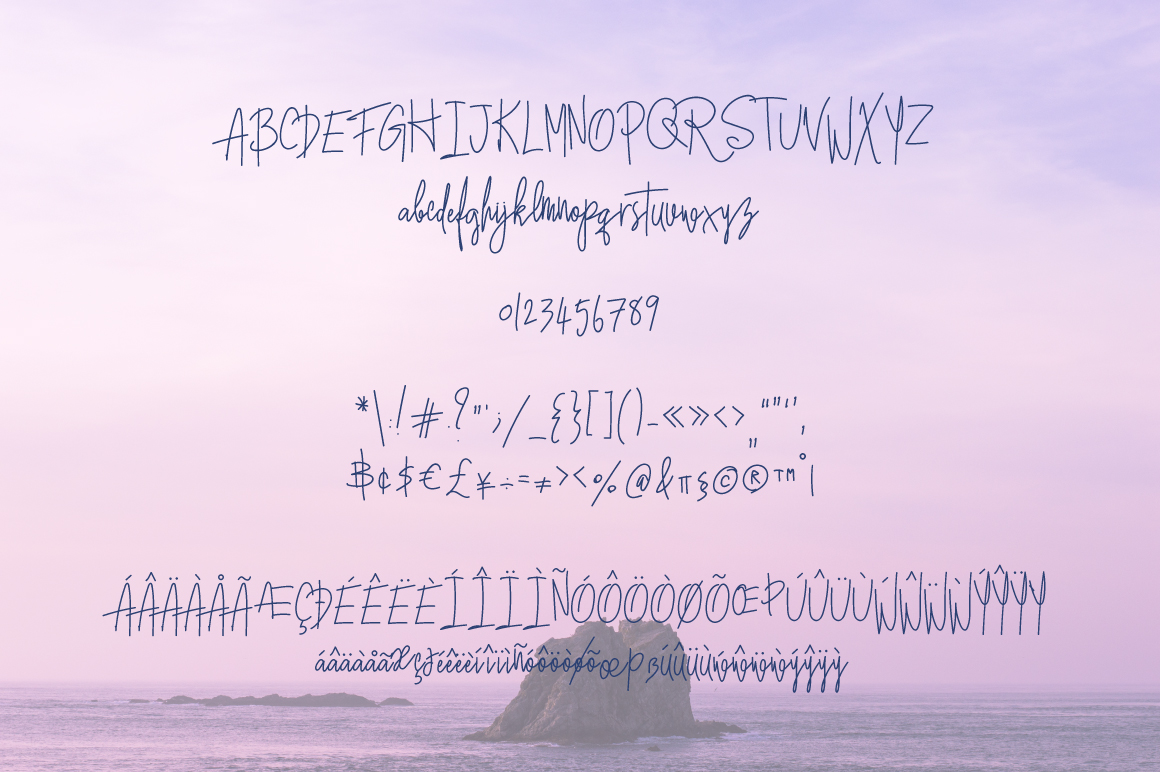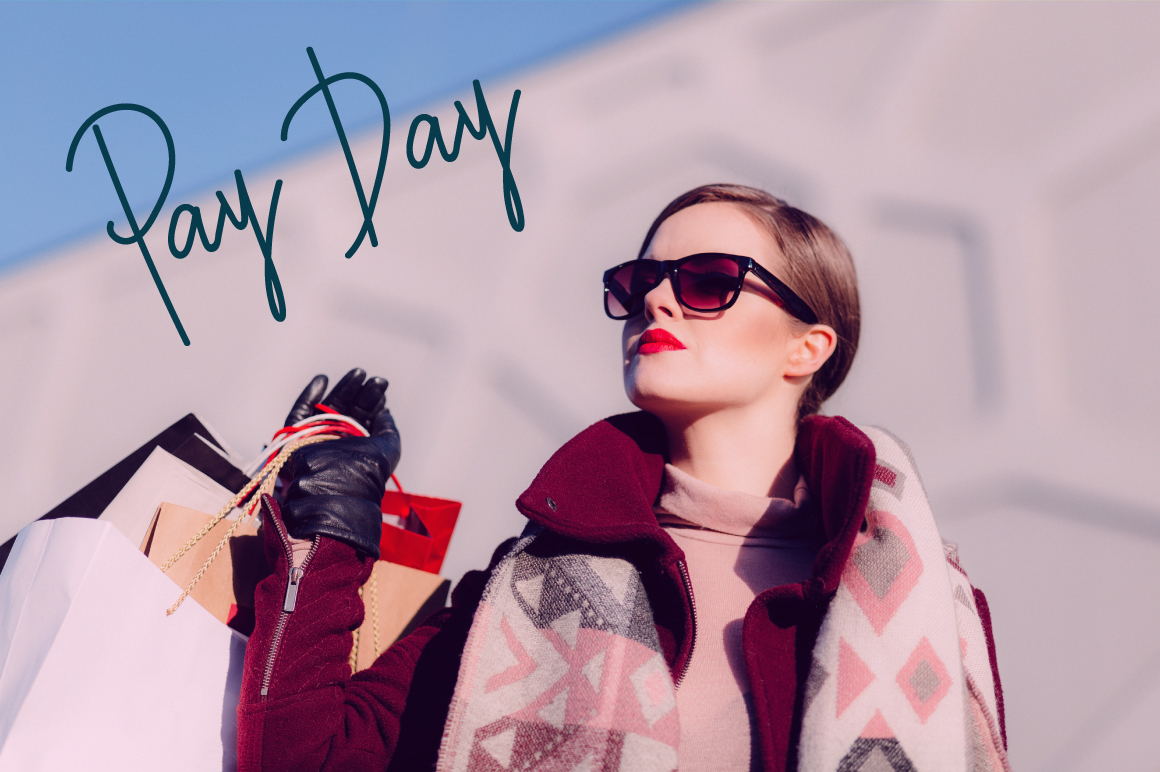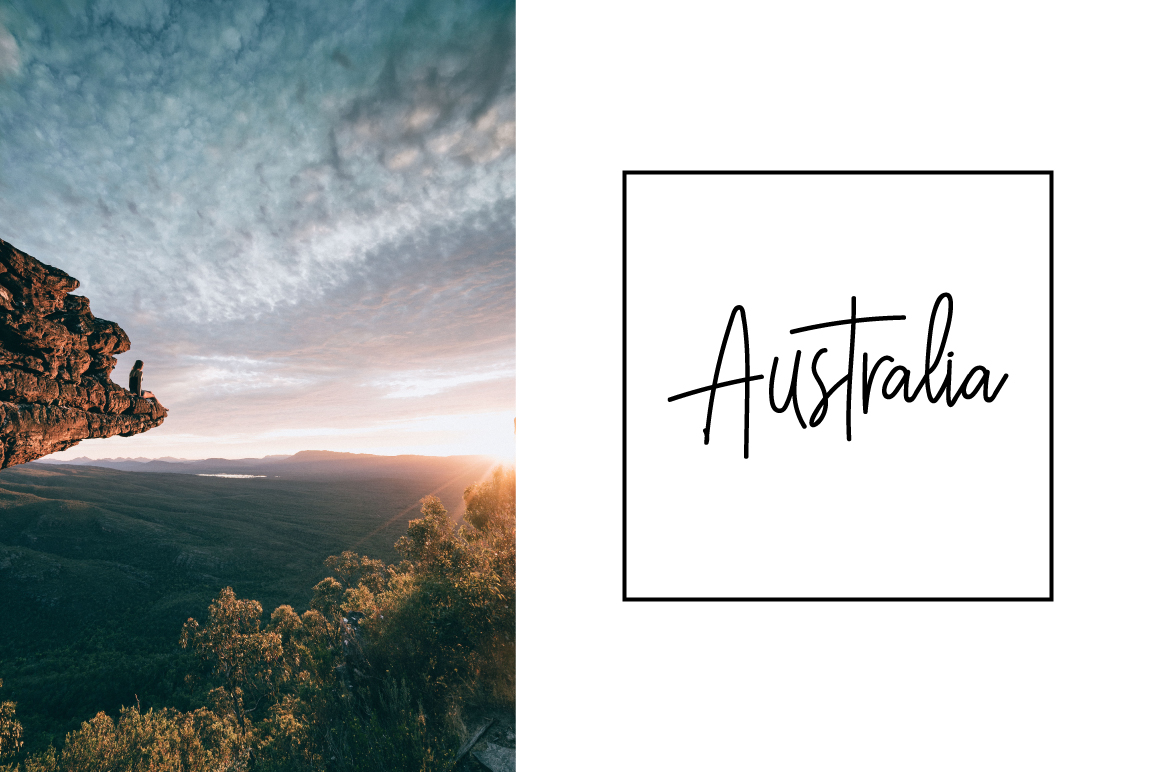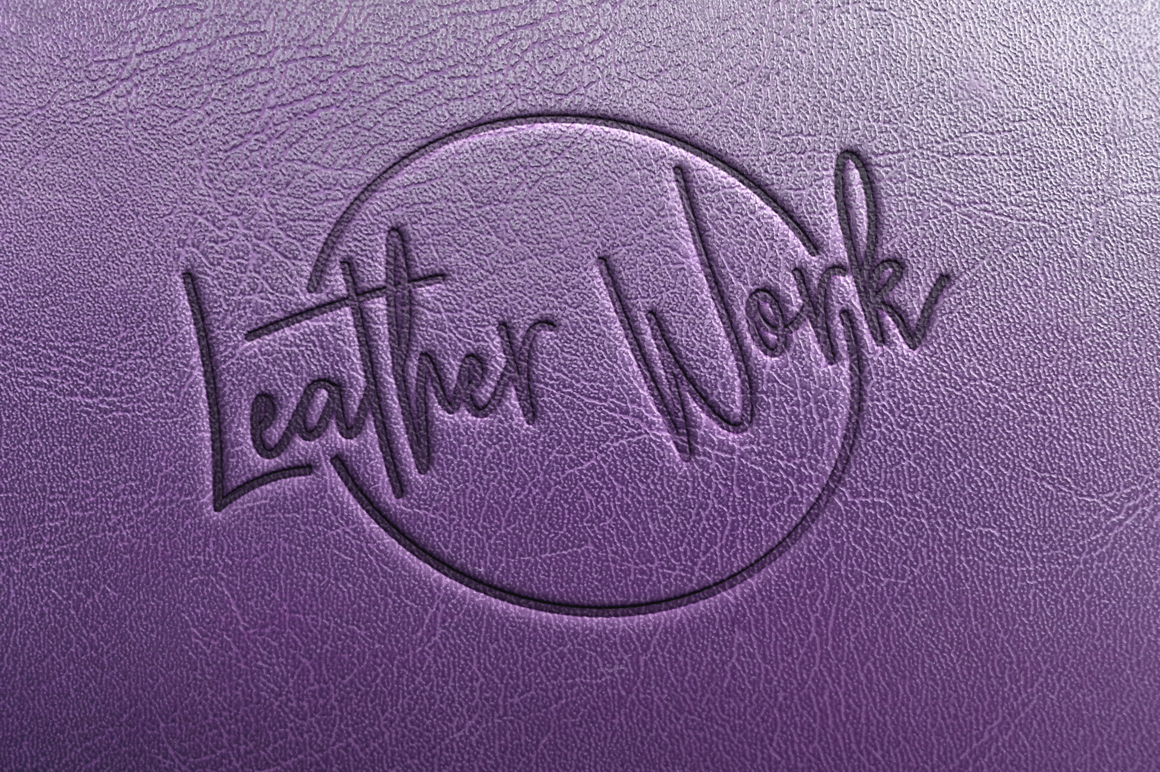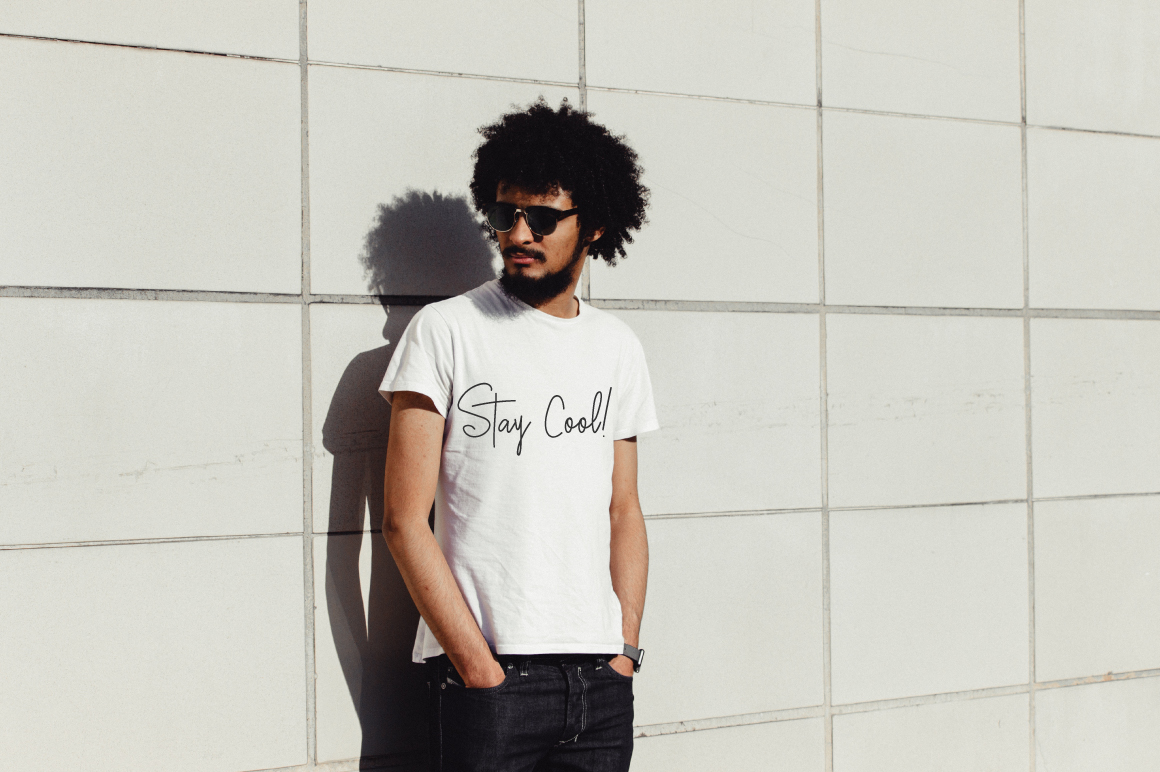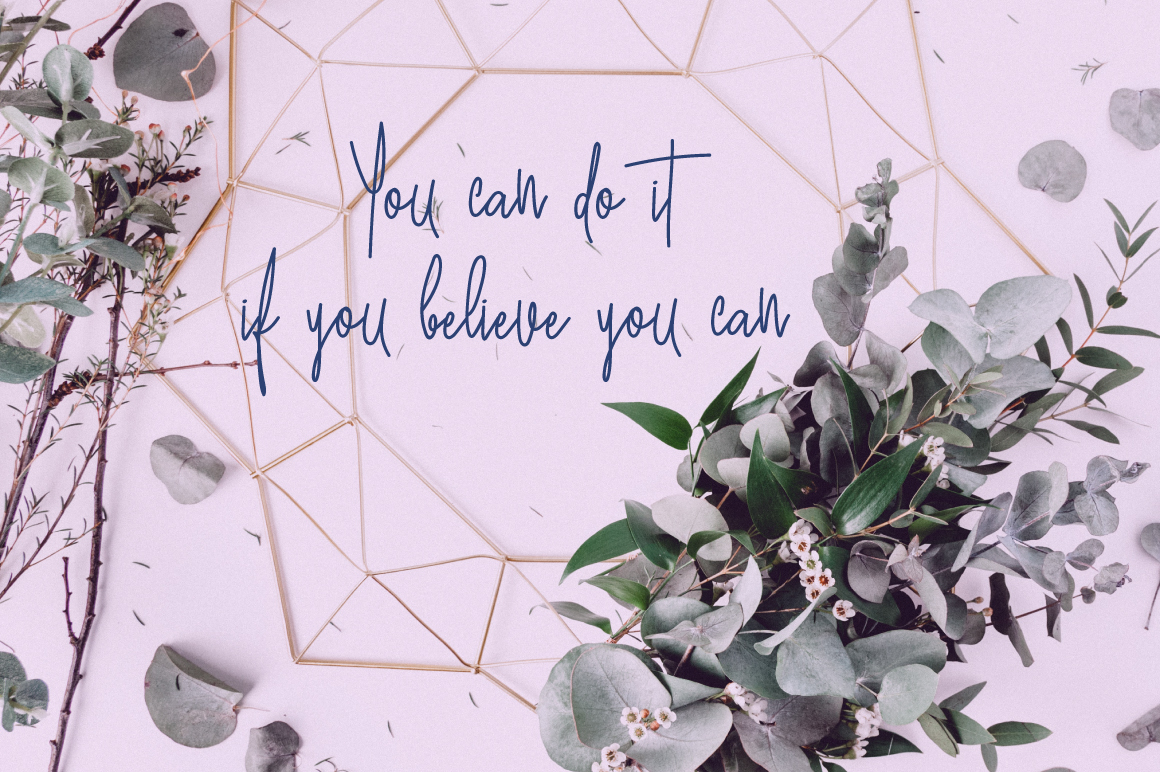
The Arduin Font: A Bouncy and Classy Typeface for Creative Projects
As a designer, I’ve had my fair share of struggles when it comes to finding the perfect font for a project. I recall working on a client’s branding project, searching for a font that would capture the essence of their playful yet sophisticated brand. That’s when I stumbled upon the Arduin font, a handwriting script typeface that instantly caught my attention. In this article, I’ll share my experience with the Arduin font, its features, and how to make the most of it in your designs.
A Personal Review of Arduin Font
The Arduin font is described as a handwriting script typeface designed to give off a bouncing and classy vibe. The name “Arduin” means brave friend, which perfectly reflects the font’s personality. Here’s what I love about it:
- ✨ Unique and playful: The Arduin font has a distinctive, handwriting-like quality that sets it apart from more traditional fonts.
- ✅ Readable: Despite its messy appearance, the Arduin font is surprisingly readable, making it perfect for body text and headings.
- 💃 Versatile: The font looks great across a wide range of designs, from elegant wedding invitations to playful brand identities.
However, I did notice a few quirks:
- 🤔 Limited use of uppercase letters: The Arduin font is primarily designed for lowercase letters, which might limit its use in certain designs.
- ⚠️ Occasional glyph issues: Some users have reported issues with glyph rendering, particularly in certain software applications.
The Backstory of Arduin Font
The Arduin font was designed with the intention of creating a handwriting script typeface that exudes confidence and playfulness. The designer aimed to create a font that would be both readable and visually appealing, making it perfect for a wide range of designs.
| Font Name | Arduin Font |
| Author | paramajandesign |
| What is the Arduin font? | The Arduin font is a handwriting script typeface designed to give off a bouncing and classy vibe. |
| Is the Arduin font readable? | Yes, despite its messy appearance, the Arduin font is surprisingly readable, making it perfect for body text and headings. |